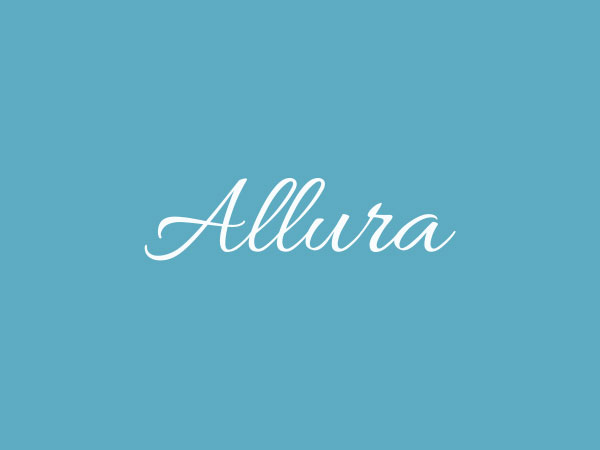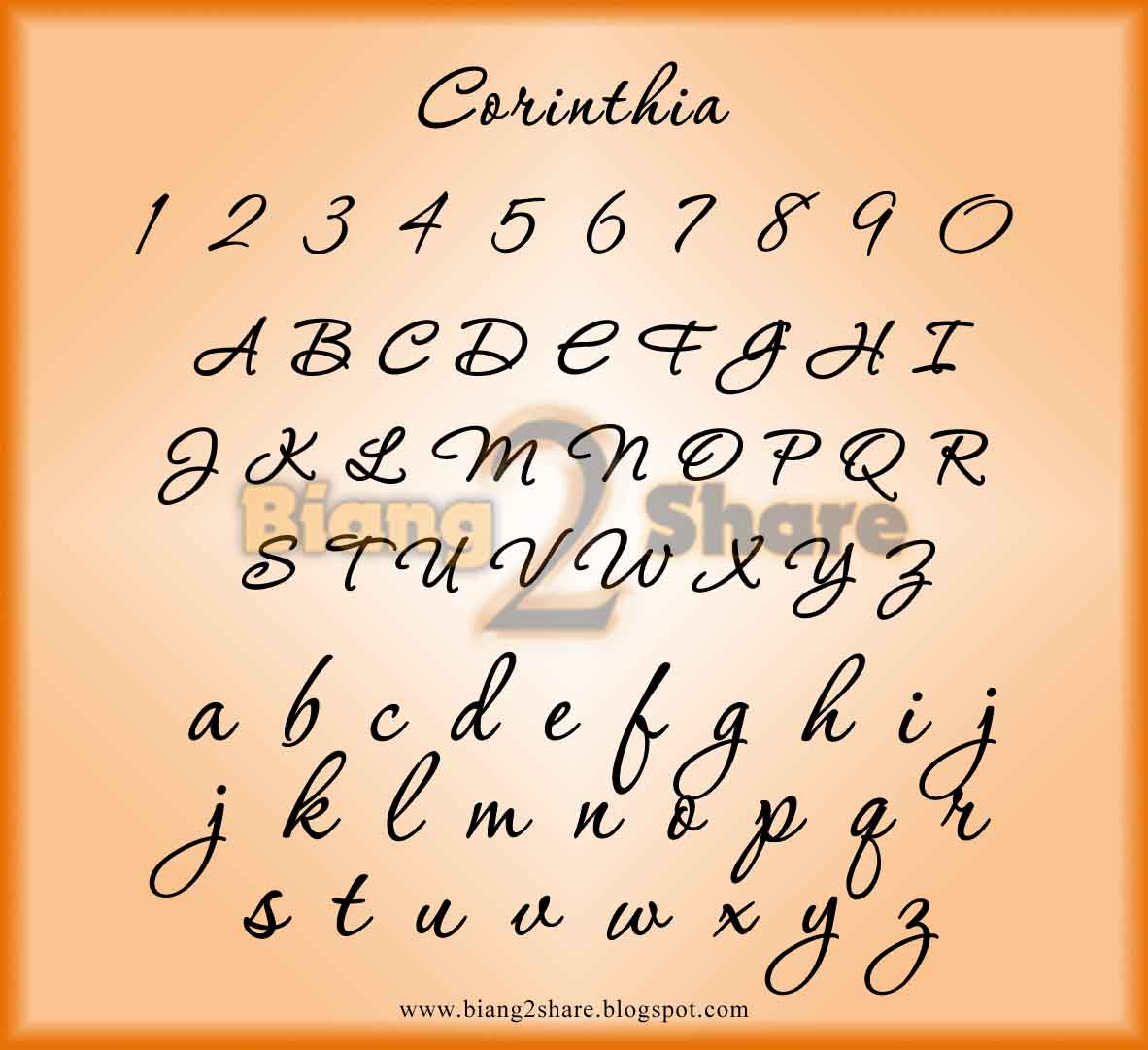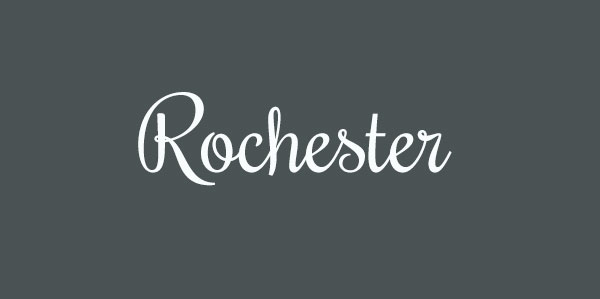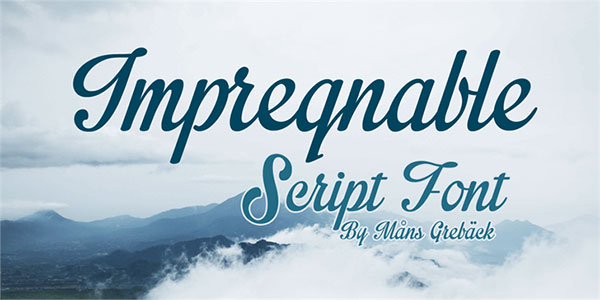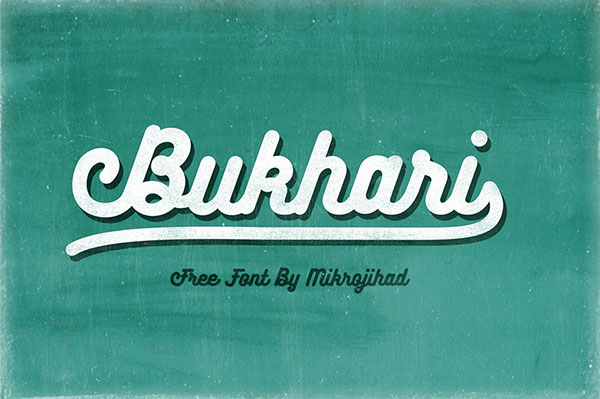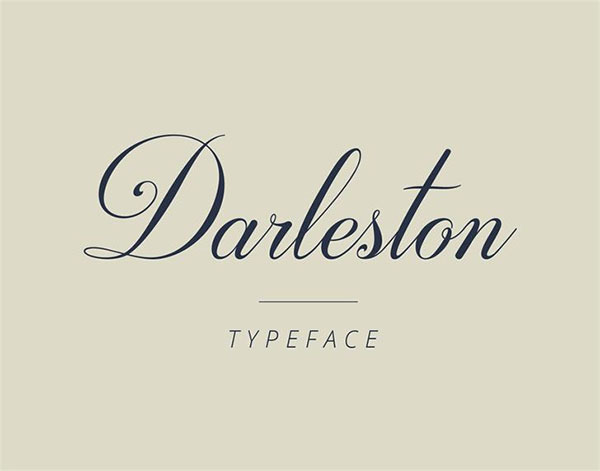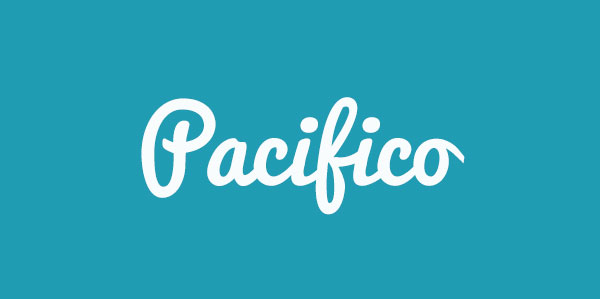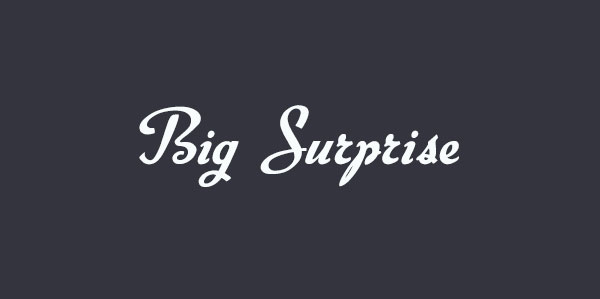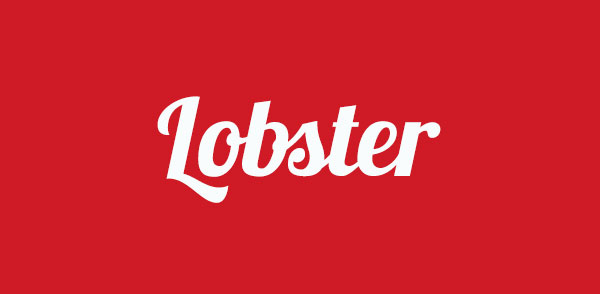
Is it possible to download and install free fonts into. To add a font to word, download and install the font in windows, where it will become available to all office applications. They are organized into highly regular formal types similar to cursive writing and looser, more casual scripts. It can display your text files using any font installed on your computer. The style of the words on the page influences the overall tone of the content, draws the eye to particular looking to download free fonts in the handwriting style? ເວລາຈະຂຽນເອກະສານທີ່ມີທັງພາສາລາວ, ພາສາອັງກິດ ແລະຕົວເລກປະປົນກັນ, ແຕ່ຫົວໜ້າພັດຢາກໃຫ້ພາສາອັງກິດ ແລະຕົວເລກຂຽນດ້ວຍ font time new roman, ສ່ວນທີ່ເປັນພາສາລາວແມ່ນໃຊ້. Then you open the vba editor, optionally remove some useless thing (usually too many selections or moves within the file) and you've got your script.
20 Script Fonts Free Otf Ttf Format Download Free Premium Templates. With about two dozen script and handwriting fonts available, you have lots of choices. This article explains how to install fonts in windows, word for macos, microsoft fonts will only display properly in word if they are installed on the user's device. Text formatted with unsupported fonts will usually appear in a. So if you have edwardian script or flemish script you get a very uniform appearance (see two samples below). Microsoft word is at its core a word processing application. You can also import font files from a cd, a dvd, or your. Fonts are a common way to transmit viruses, so take care to only download. To add a font to word, download and install the font in windows, where it will become available to all office applications. This wikihow teaches you how to install a font on your windows or mac computer in order to use the font in microsoft word. Inside word, you can record a macro by doing it yourself. Fonts come as files, and there are many sites on the internet where you can download free fonts, such as dafont. It can display your text files using any font installed on your computer. ເວລາຈະຂຽນເອກະສານທີ່ມີທັງພາສາລາວ, ພາສາອັງກິດ ແລະຕົວເລກປະປົນກັນ, ແຕ່ຫົວໜ້າພັດຢາກໃຫ້ພາສາອັງກິດ ແລະຕົວເລກຂຽນດ້ວຍ font time new roman, ສ່ວນທີ່ເປັນພາສາລາວແມ່ນໃຊ້. Download the font from a trusted website. I need a script that find all words formatted in that font and change it to the new font.
25 Font Script Tulisan Tangan Keren Free Download Desain Graphix. So if you have edwardian script or flemish script you get a very uniform appearance (see two samples below). To add a font to word, download and install the font in windows, where it will become available to all office applications. This article explains how to install fonts in windows, word for macos, microsoft fonts will only display properly in word if they are installed on the user's device. With about two dozen script and handwriting fonts available, you have lots of choices. Fonts are a common way to transmit viruses, so take care to only download. Fonts come as files, and there are many sites on the internet where you can download free fonts, such as dafont. Microsoft word is at its core a word processing application. Inside word, you can record a macro by doing it yourself. You can also import font files from a cd, a dvd, or your. It can display your text files using any font installed on your computer. Text formatted with unsupported fonts will usually appear in a. ເວລາຈະຂຽນເອກະສານທີ່ມີທັງພາສາລາວ, ພາສາອັງກິດ ແລະຕົວເລກປະປົນກັນ, ແຕ່ຫົວໜ້າພັດຢາກໃຫ້ພາສາອັງກິດ ແລະຕົວເລກຂຽນດ້ວຍ font time new roman, ສ່ວນທີ່ເປັນພາສາລາວແມ່ນໃຊ້. I need a script that find all words formatted in that font and change it to the new font. This wikihow teaches you how to install a font on your windows or mac computer in order to use the font in microsoft word. Download the font from a trusted website.
The images shown below are from word for office 365, which is currently the same as word 2019.
15 Font Tegak Bersambung Yang Keren Dan Indah Grafis Media. Download the font from a trusted website. Fonts are a common way to transmit viruses, so take care to only download. Inside word, you can record a macro by doing it yourself. Microsoft word is at its core a word processing application. Text formatted with unsupported fonts will usually appear in a. Fonts come as files, and there are many sites on the internet where you can download free fonts, such as dafont. This wikihow teaches you how to install a font on your windows or mac computer in order to use the font in microsoft word. You can also import font files from a cd, a dvd, or your. ເວລາຈະຂຽນເອກະສານທີ່ມີທັງພາສາລາວ, ພາສາອັງກິດ ແລະຕົວເລກປະປົນກັນ, ແຕ່ຫົວໜ້າພັດຢາກໃຫ້ພາສາອັງກິດ ແລະຕົວເລກຂຽນດ້ວຍ font time new roman, ສ່ວນທີ່ເປັນພາສາລາວແມ່ນໃຊ້. I need a script that find all words formatted in that font and change it to the new font. It can display your text files using any font installed on your computer. To add a font to word, download and install the font in windows, where it will become available to all office applications. This article explains how to install fonts in windows, word for macos, microsoft fonts will only display properly in word if they are installed on the user's device. So if you have edwardian script or flemish script you get a very uniform appearance (see two samples below). With about two dozen script and handwriting fonts available, you have lots of choices.
There are several websites like dafont, fontspace, and font squirrel that have huge archives of fonts that are.
What Is The Best Cursive Font In Microsoft Word Quora. Fonts come as files, and there are many sites on the internet where you can download free fonts, such as dafont. Text formatted with unsupported fonts will usually appear in a. Download the font from a trusted website. Inside word, you can record a macro by doing it yourself. This wikihow teaches you how to install a font on your windows or mac computer in order to use the font in microsoft word. I need a script that find all words formatted in that font and change it to the new font. With about two dozen script and handwriting fonts available, you have lots of choices. To add a font to word, download and install the font in windows, where it will become available to all office applications. This article explains how to install fonts in windows, word for macos, microsoft fonts will only display properly in word if they are installed on the user's device. ເວລາຈະຂຽນເອກະສານທີ່ມີທັງພາສາລາວ, ພາສາອັງກິດ ແລະຕົວເລກປະປົນກັນ, ແຕ່ຫົວໜ້າພັດຢາກໃຫ້ພາສາອັງກິດ ແລະຕົວເລກຂຽນດ້ວຍ font time new roman, ສ່ວນທີ່ເປັນພາສາລາວແມ່ນໃຊ້. It can display your text files using any font installed on your computer. So if you have edwardian script or flemish script you get a very uniform appearance (see two samples below). Microsoft word is at its core a word processing application. You can also import font files from a cd, a dvd, or your. Fonts are a common way to transmit viruses, so take care to only download.
Here are some useful resources to microsoft has some tips on how to troubleshoot font problems in microsoft word and also created a quick and easy way to find out which fonts come. People also prefer using font style or font type. There are several websites like dafont, fontspace, and font squirrel that have huge archives of fonts that are. You can also import font files from a cd, a dvd, or your. Here are some useful resources to microsoft has some tips on how to troubleshoot font problems in microsoft word and also created a quick and easy way to find out which fonts come. How to change the font of an entire document in microsoft word. I need a script font i dont see it i know it has it but ms office 2007 is way different i need to accecess the script fonts. However, the steps are the same for word 2016 and important update: Alright, so you have your document written out but you don't like the way it looks. To add a font to word, download and install the font in windows, where it will become available to all office applications.